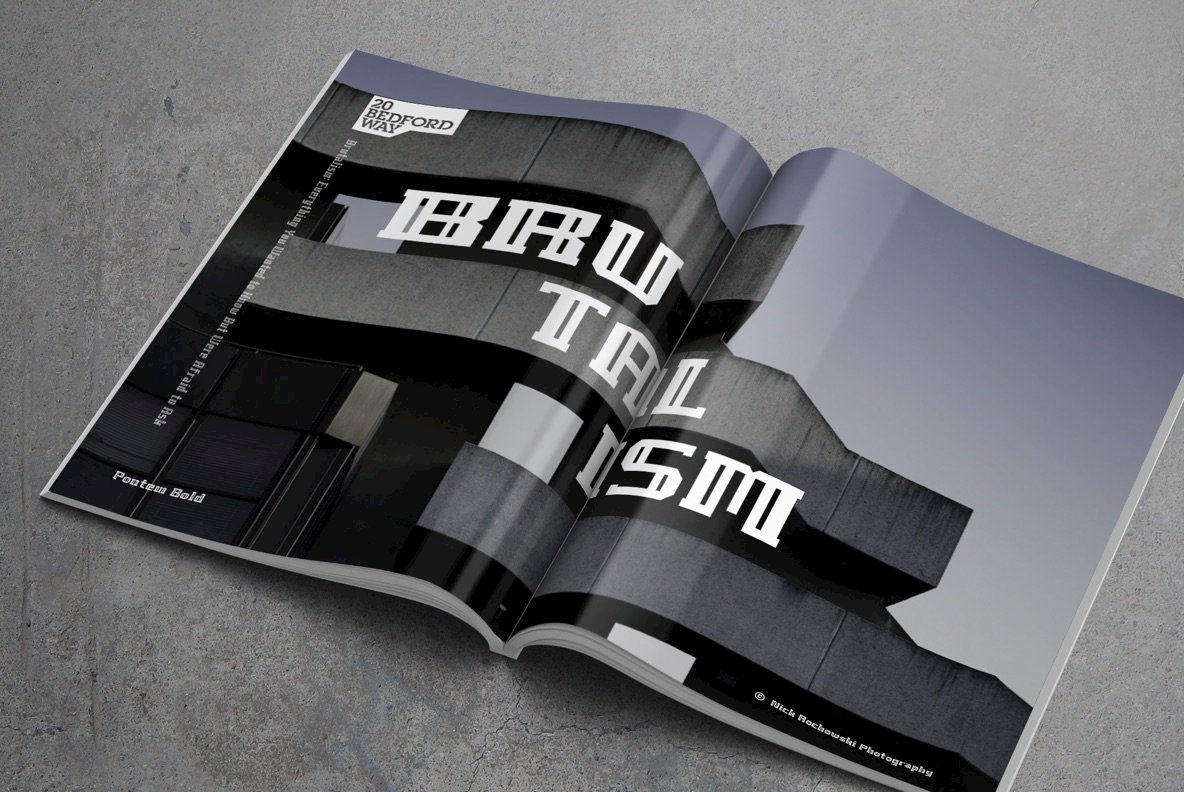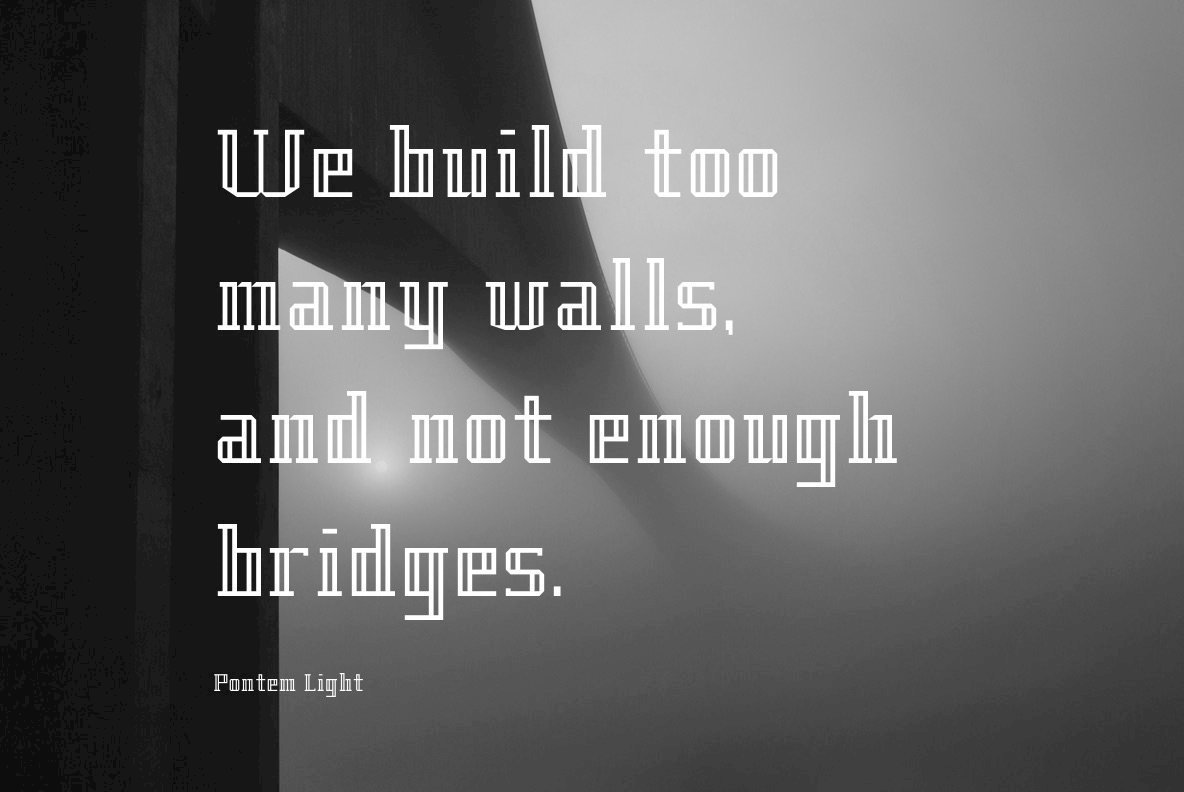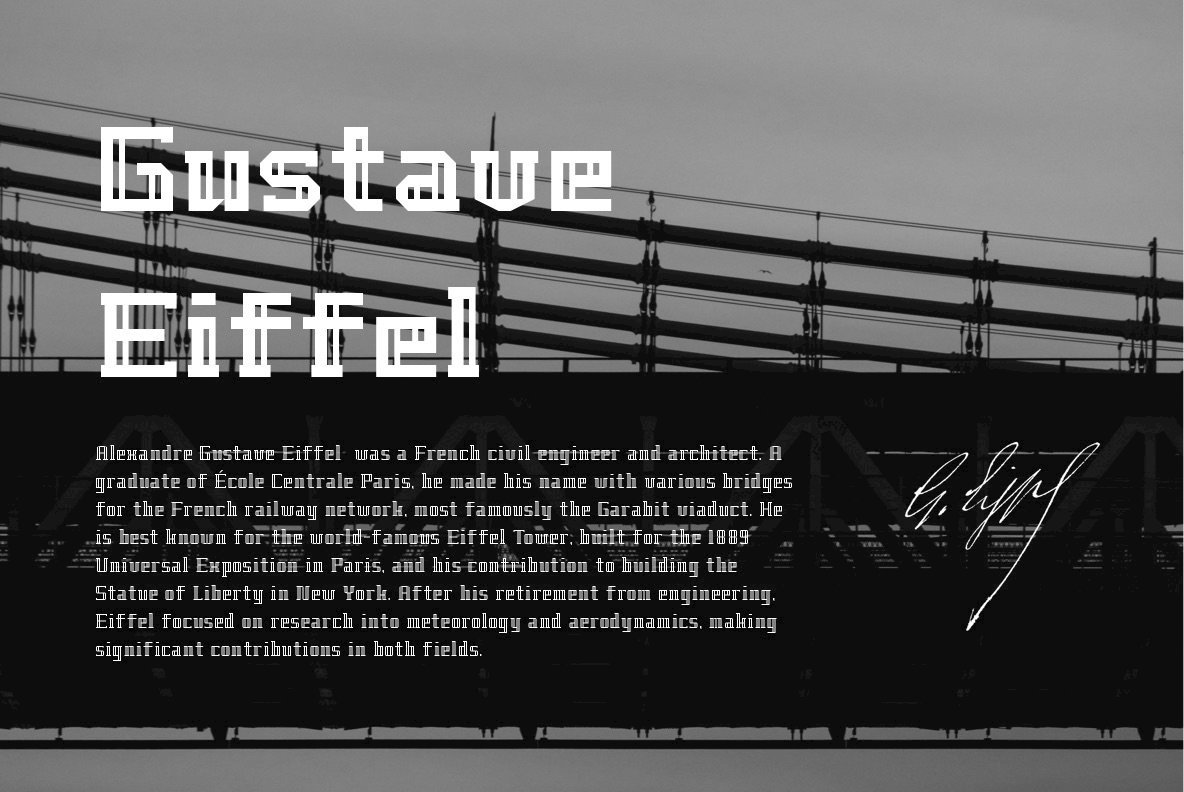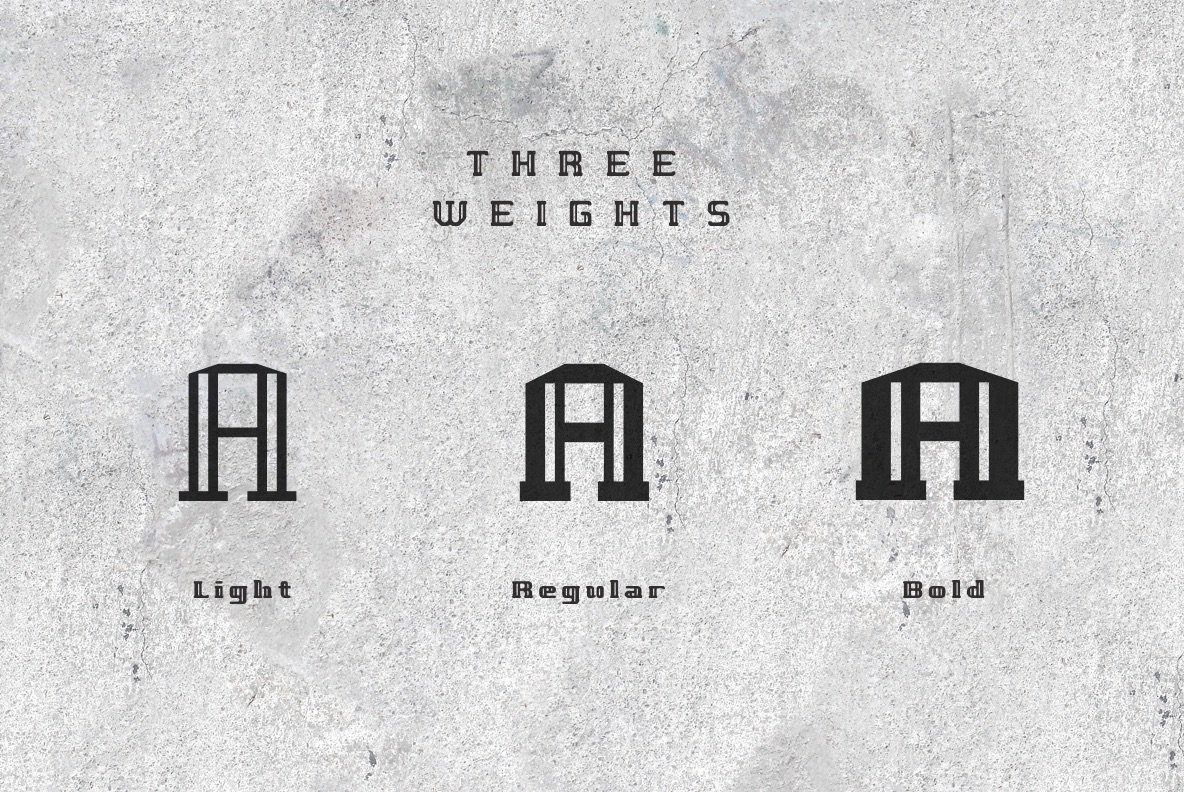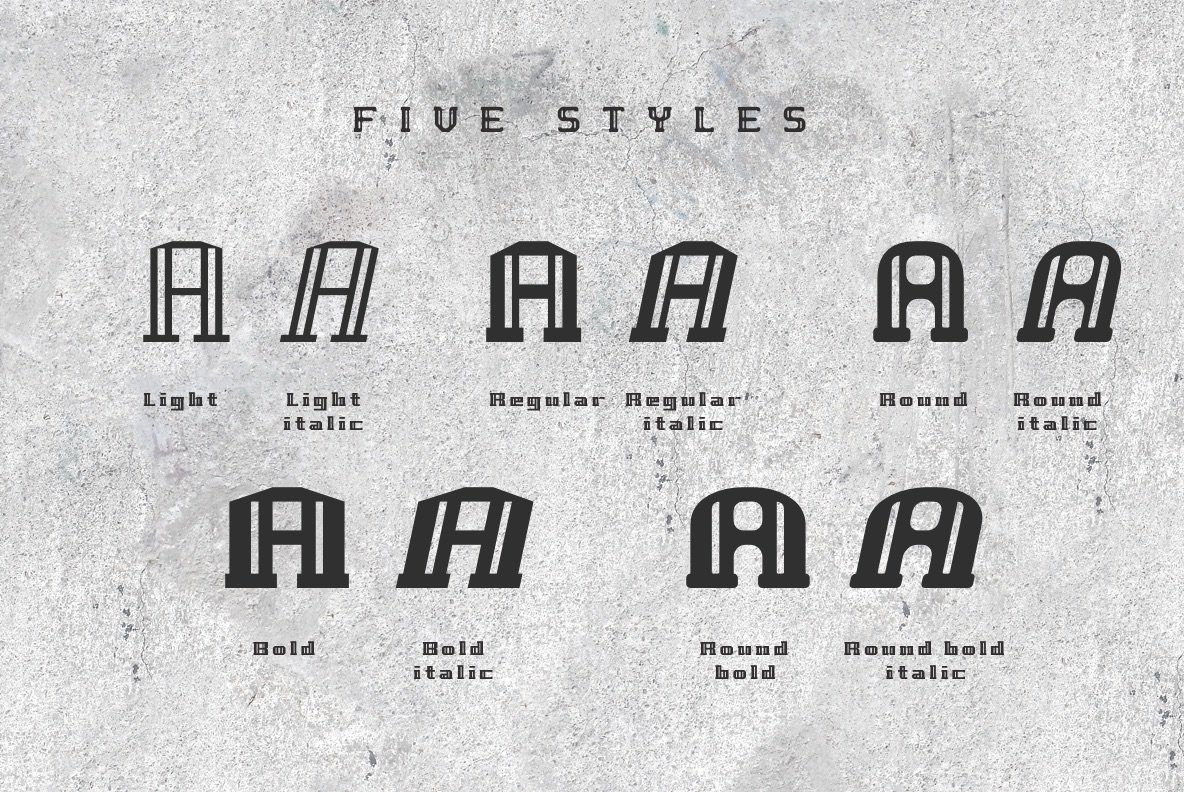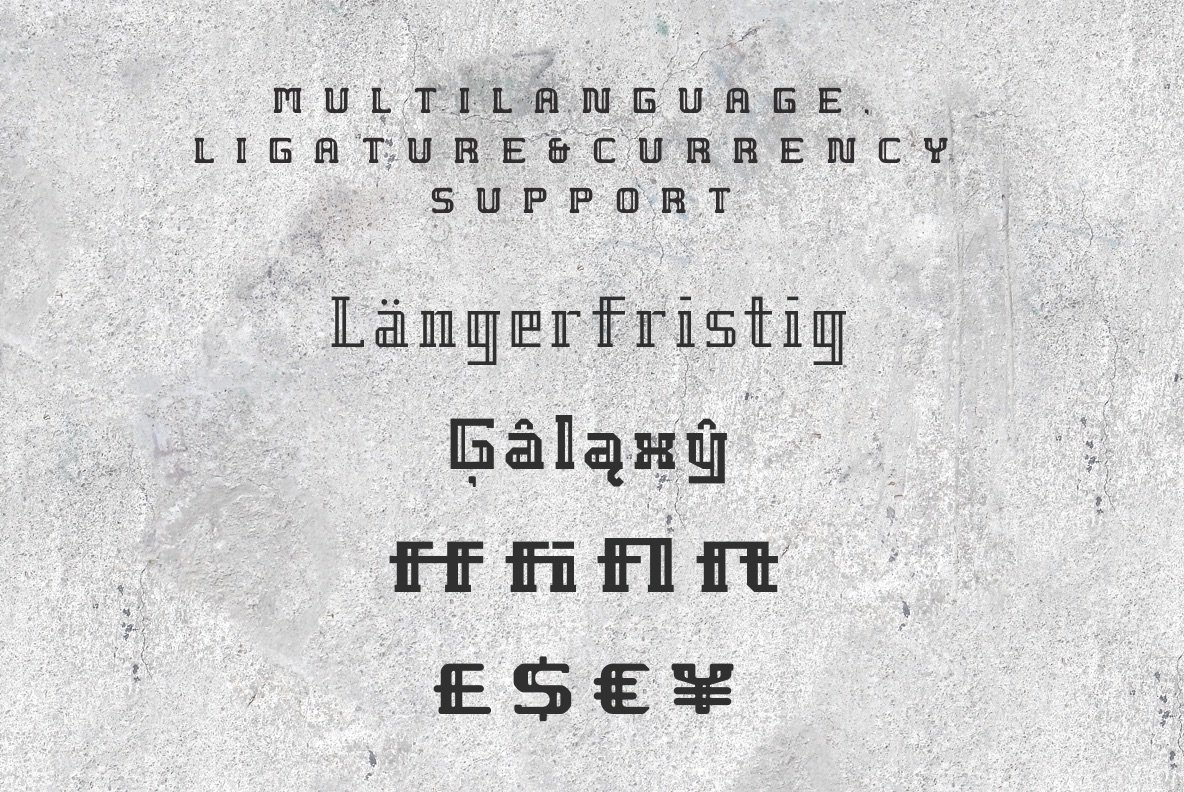
Pontem Font
Bringing the structural elegance of bridges into typography, Pontem offers a unique fusion of design and engineering. Conceived with an appreciation for the intricate construction of bridges, this typeface reflects stability and sophistication. Each character is meticulously crafted to embody the essence of connectivity and support, much like the function of a bridge in the architectural landscape.Pontem: Engineered Typeface Inspired by Bridges